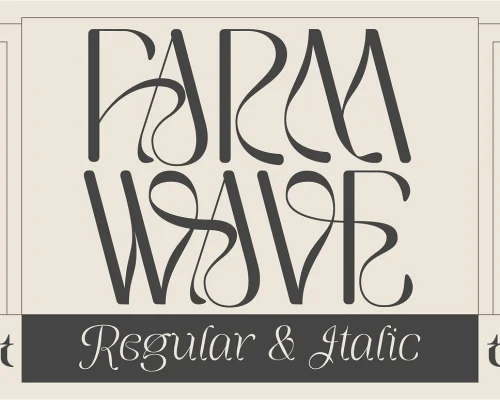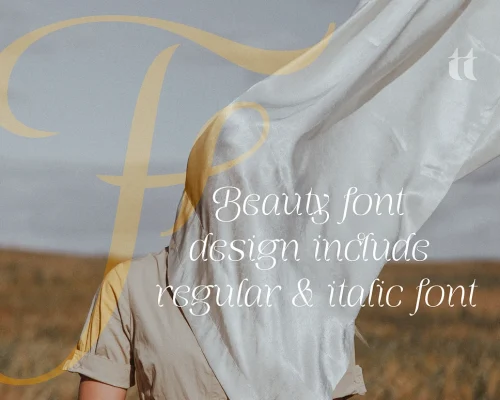
Marokea Embodies Simplicity
Marokea Embodies Simplicity and Elegance is a refined sans serif font that exemplifies both simplicity and elegance across two distinct styles: a steadfast Regular and a graceful Italic. This font is meticulously crafted with minimalist lines that focus on readability.
Each stroke in Marokea font is thoughtfully designed to balance functionality and aesthetics. Its presence aims to enhance text without being overpowering. The beautiful ligatures in Marokea flow seamlessly, connecting letters in a harmonious typographic dance, while the stylistic sets offer a variety of expressive options to customize your content.
Elegant swashes are a standout feature of Marokea, adding a sophisticated touch ideal for unique branding or high-end editorial work.
Marokea is a versatile and stylish font, suited for both digital media and print, making it an essential component in your typographic toolkit.